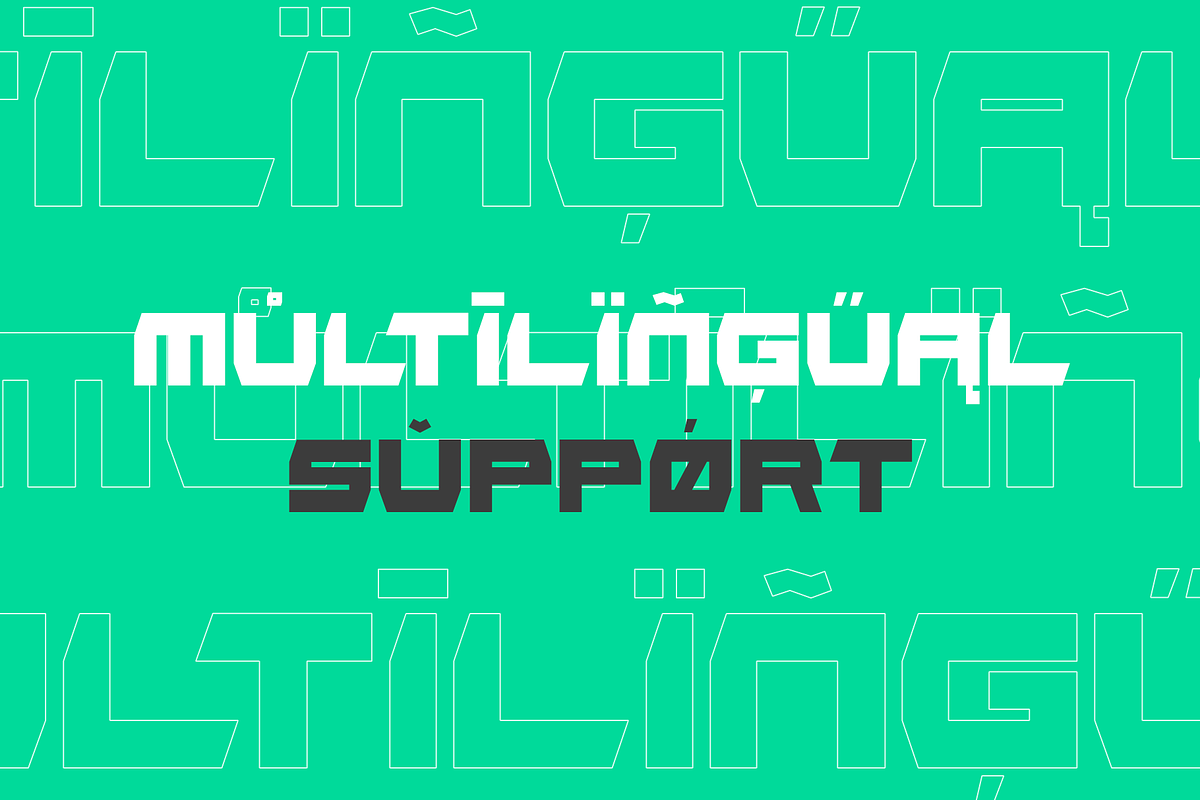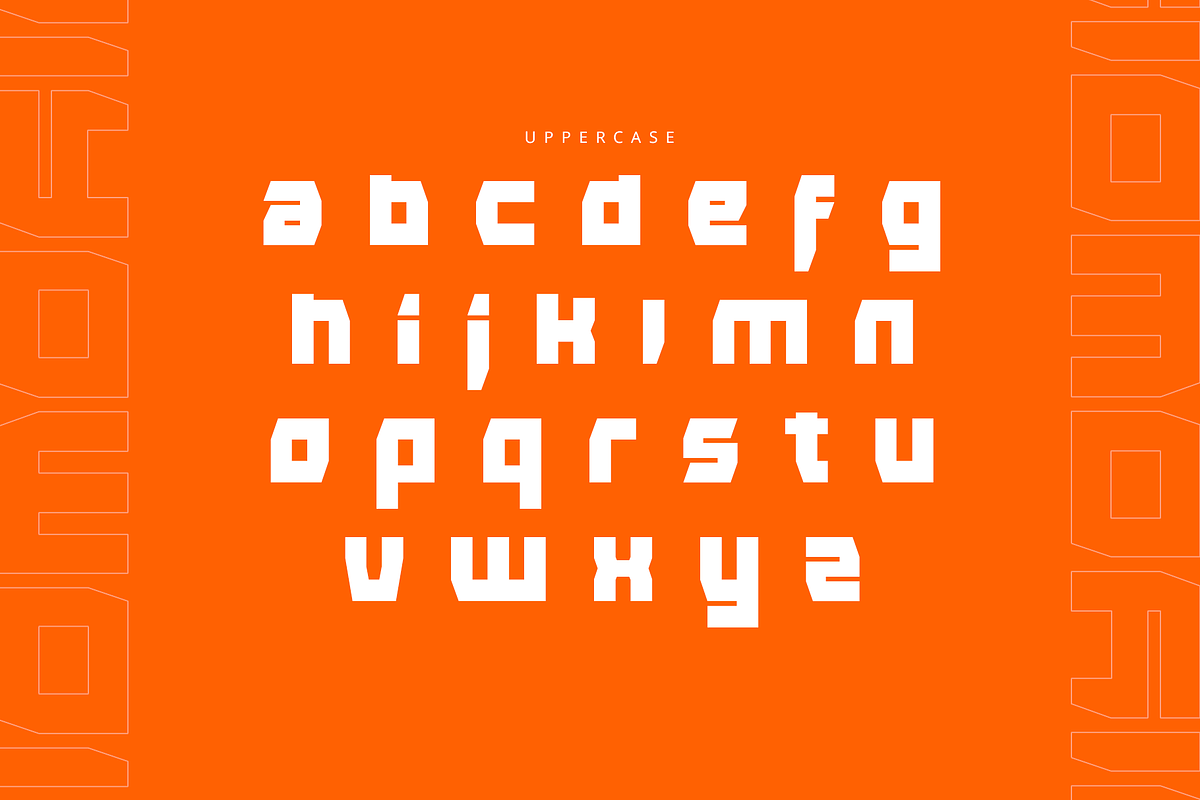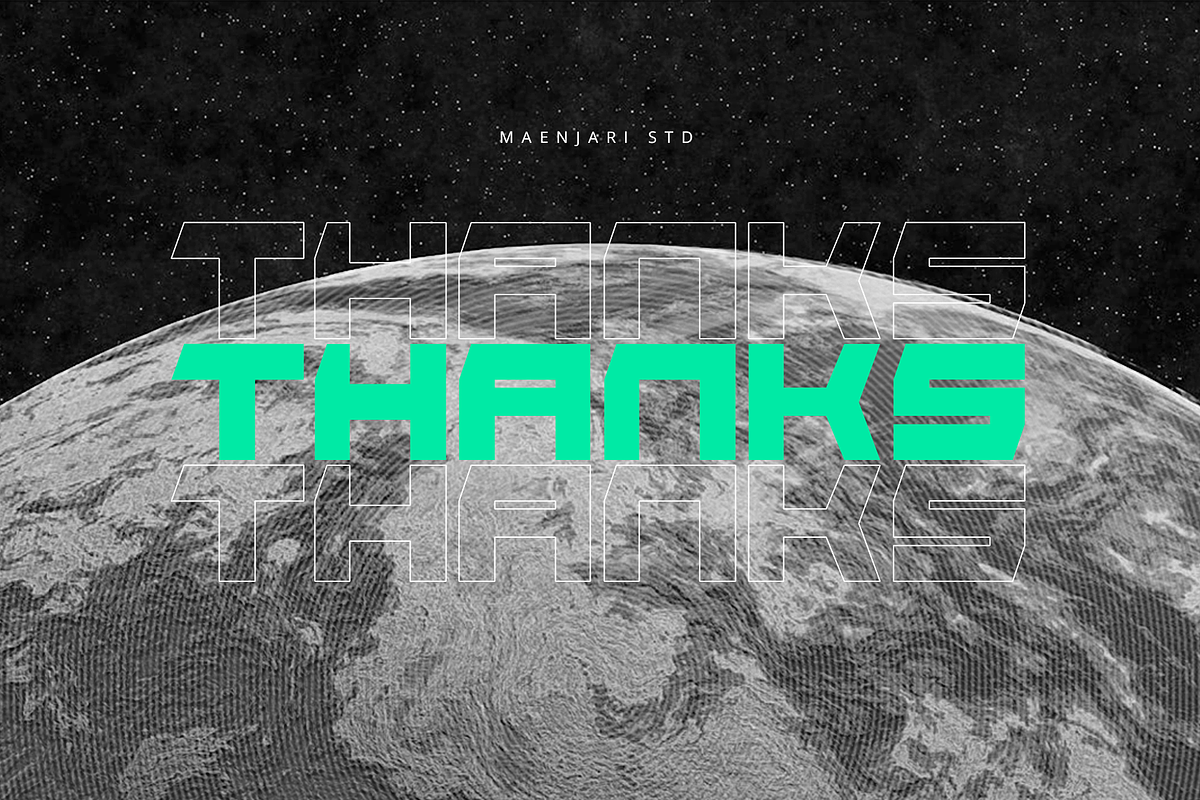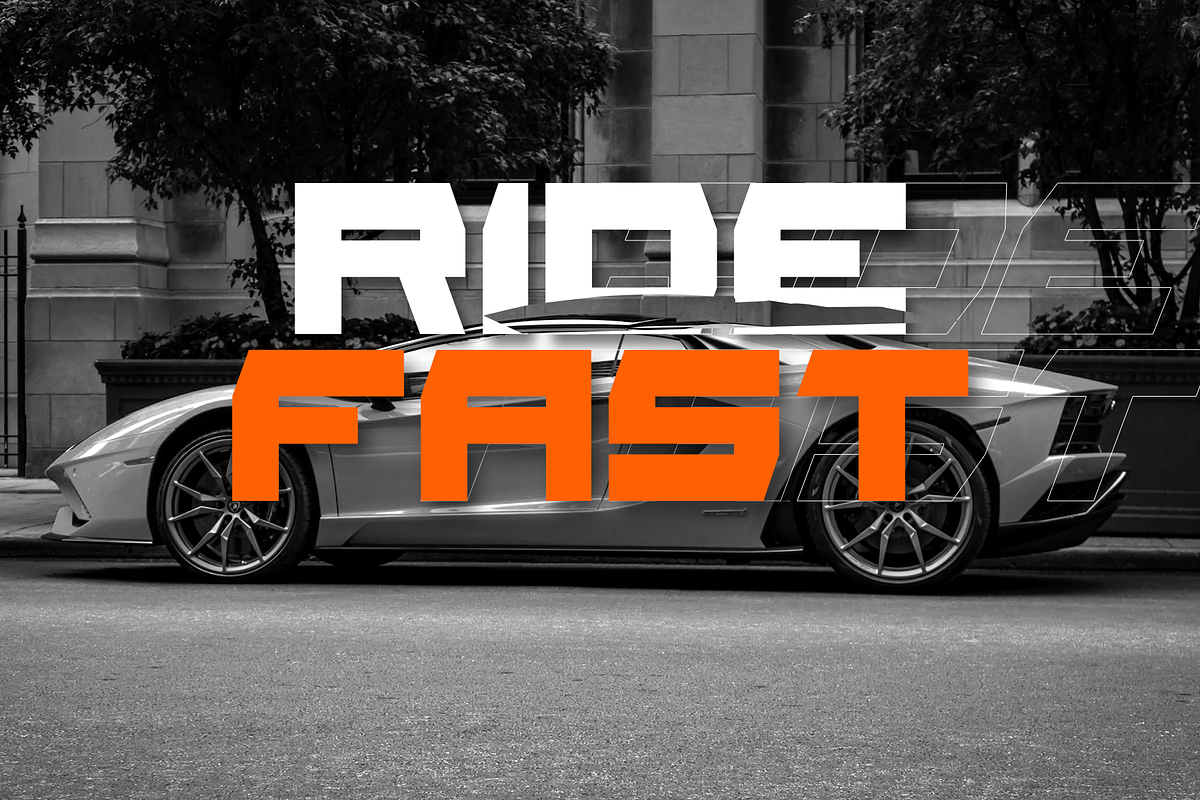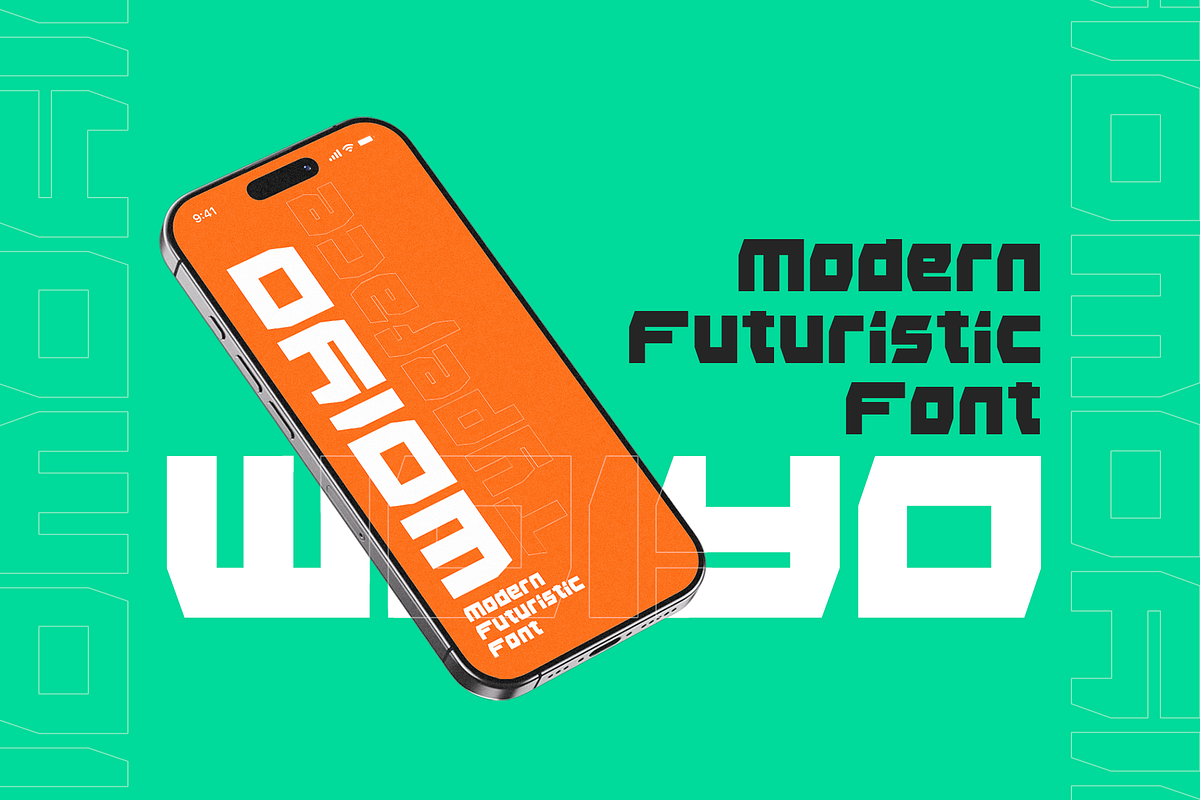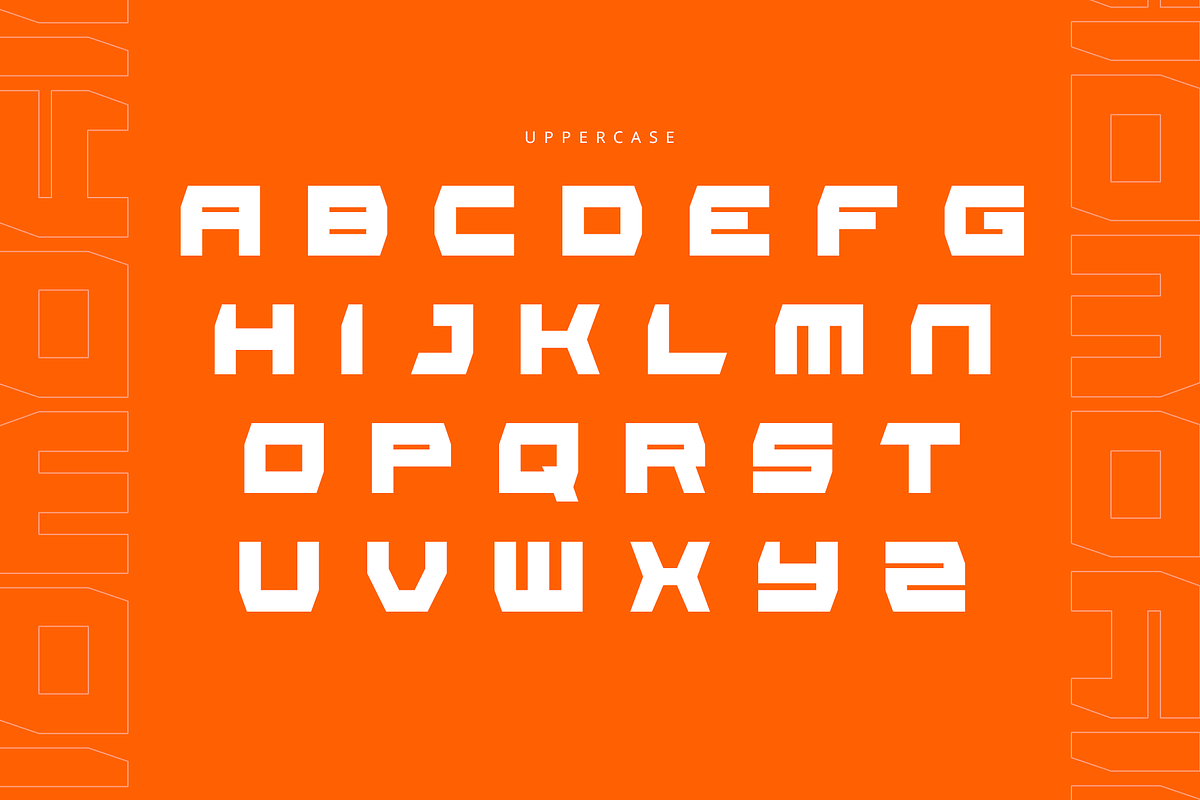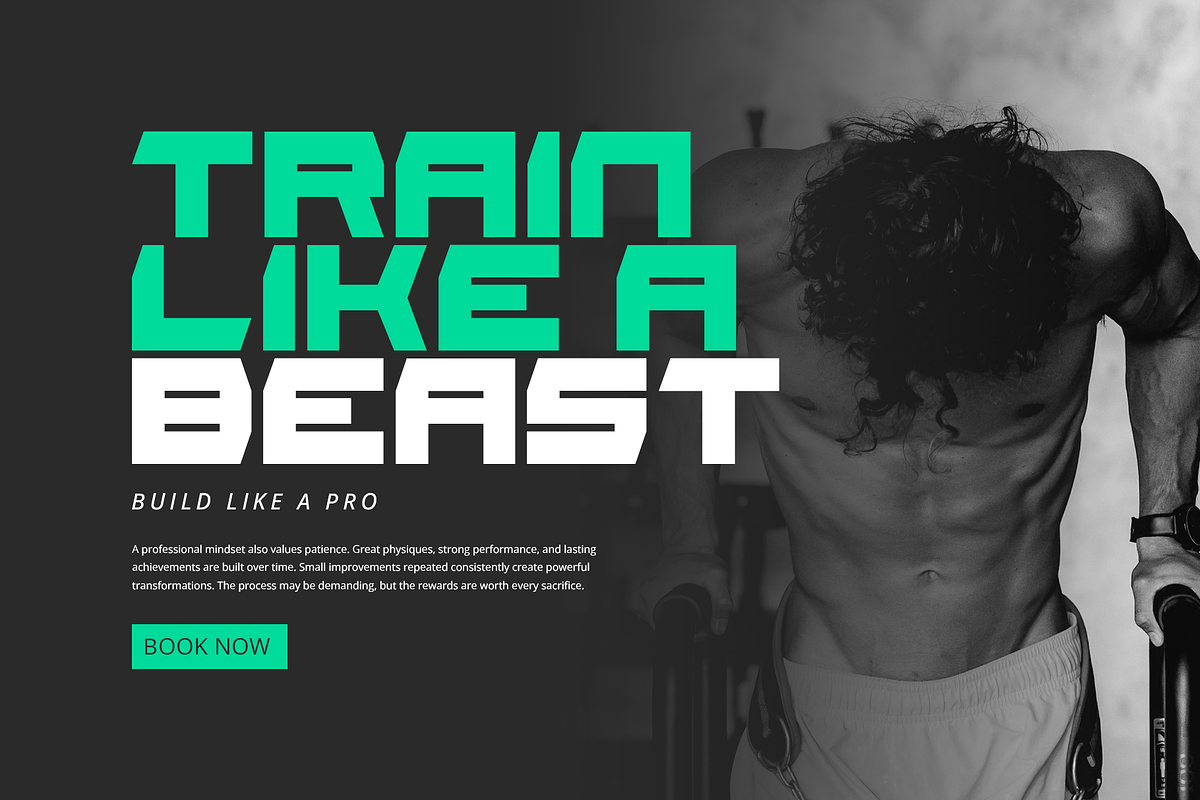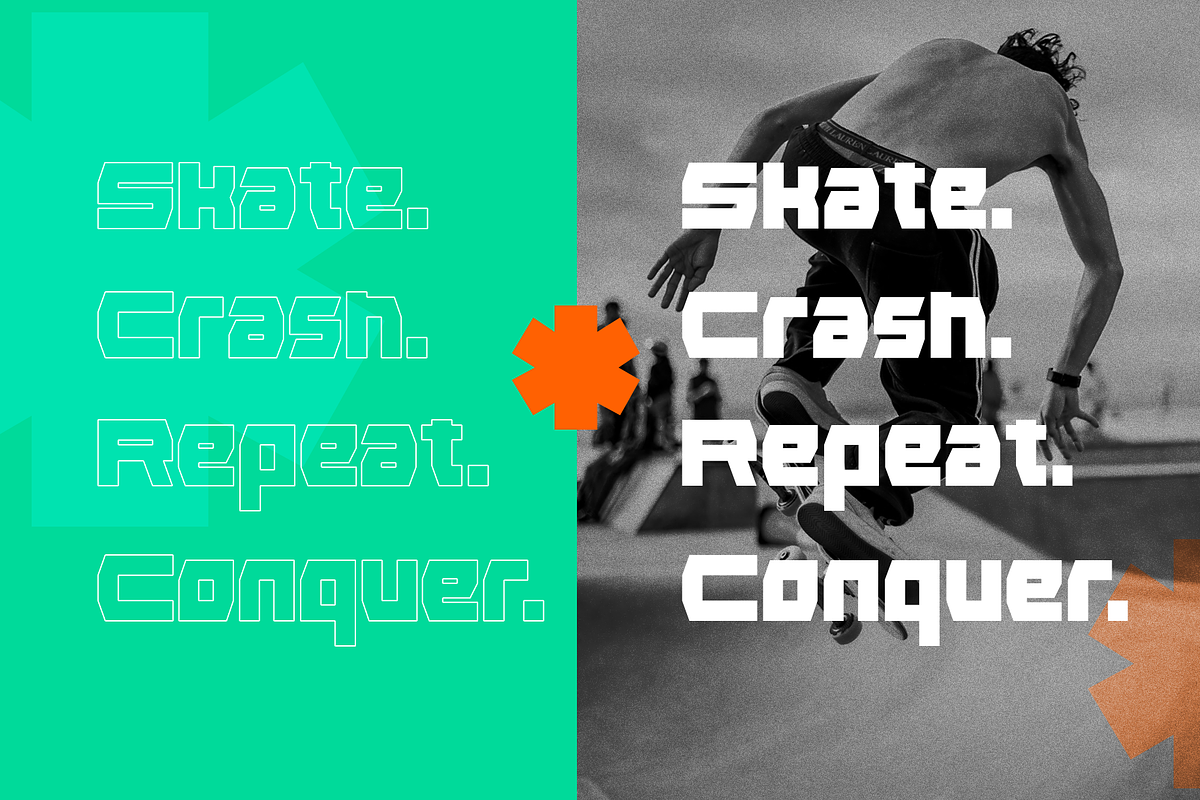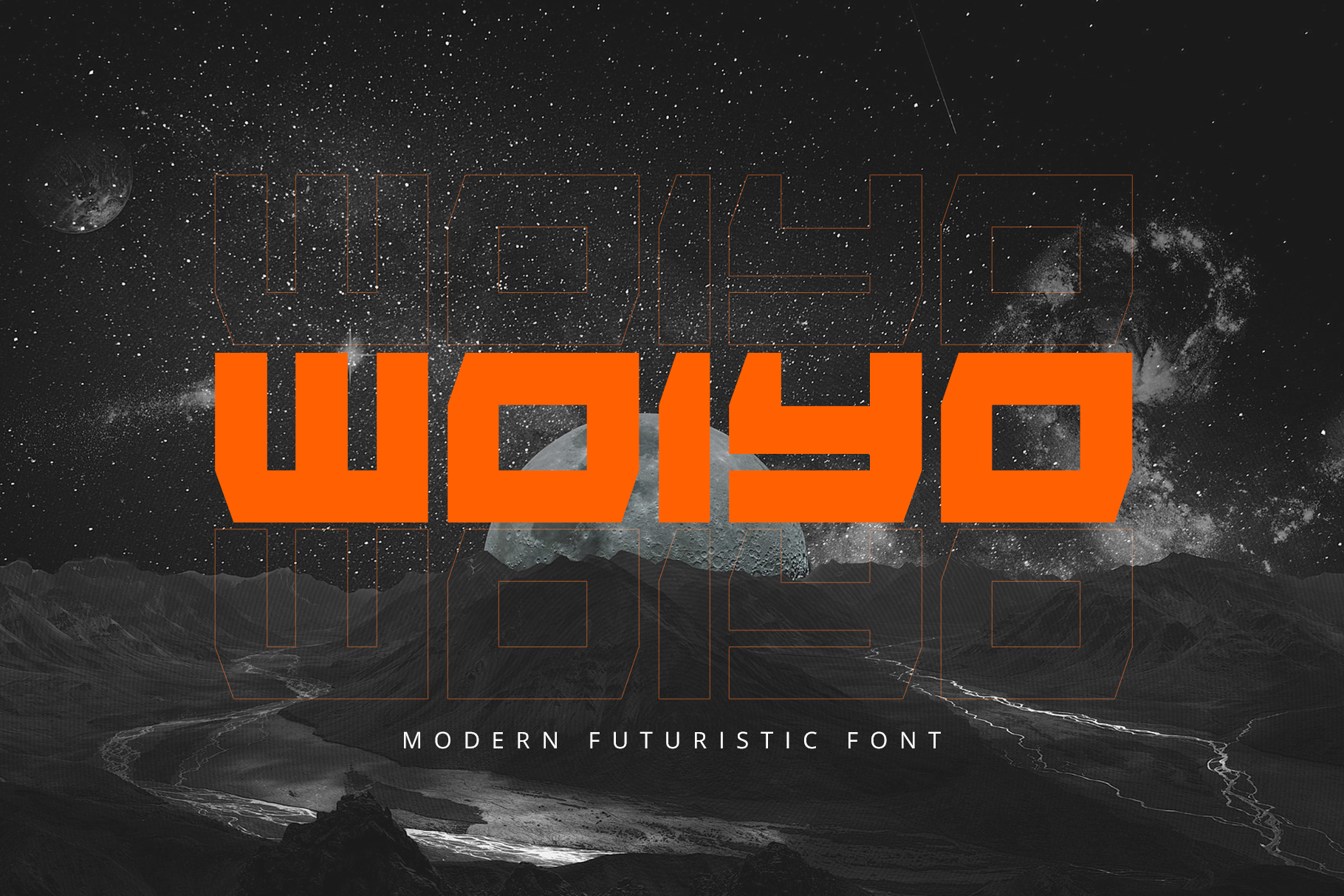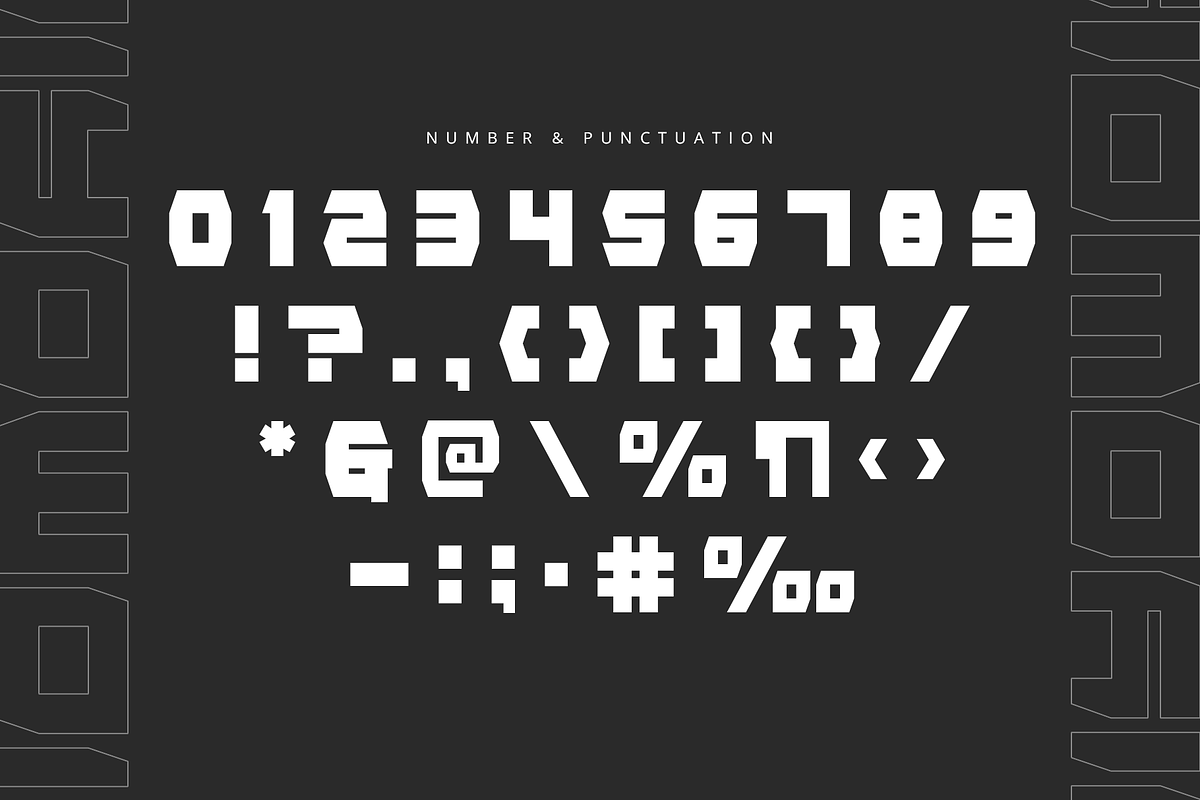
Woiyo - Modern Futuristic Font
Inject Sci-Fi Power Into Your Designs with Woiyo!
Looking for a typeface that screams high-tech machinery and space-age rebellion? Meet Woiyo, a heavy-set, modern futuristic display font engineered by maenjari.std to bring absolute visual dominance to your digital canvas. Inspired by brutalist architecture and mecha aesthetics, its thick, angular contours are crafted for the next generation of design.
Woiyo doesn't just sit on a page—it commands it. It is the ultimate choice for crafting aggressive esports logos, cyberpunk streaming overlays, sci-fi book covers, tech product packaging, and high-performance streetwear brands.
Striking Uppercase & Lowercase letters with solid geometric weight
Full set of numbers, extended punctuation, and core symbols
Broad Multilingual support for seamless global branding
Sharp vector paths optimized for crisp display at massive sizes